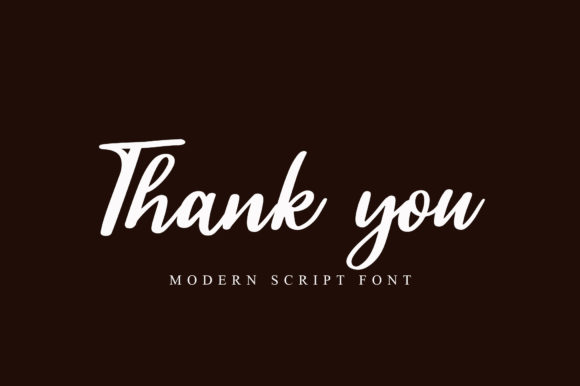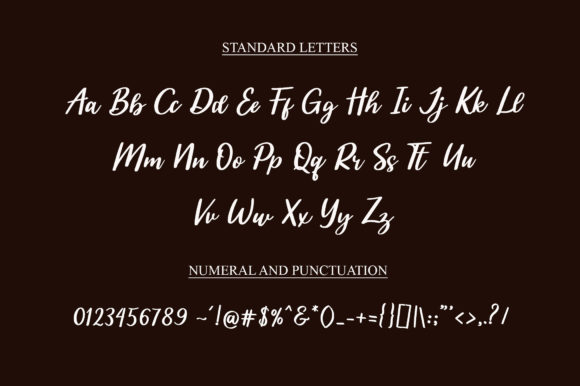
Black Stune Font
db-ku.com - Script & Handwritten -- Black Stune is an elegant script font with a contemporary atmosphere and impeccable form, inspired by timeless classic calligraphy. Not too thin and not too thick, balanced and varied, this font was designed to enhance the beauty of your projects.